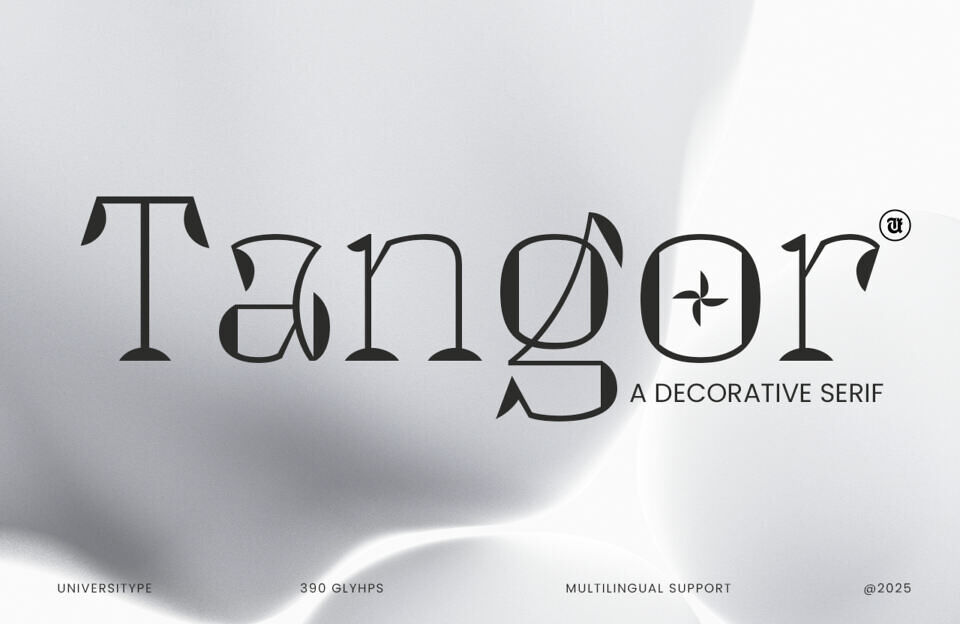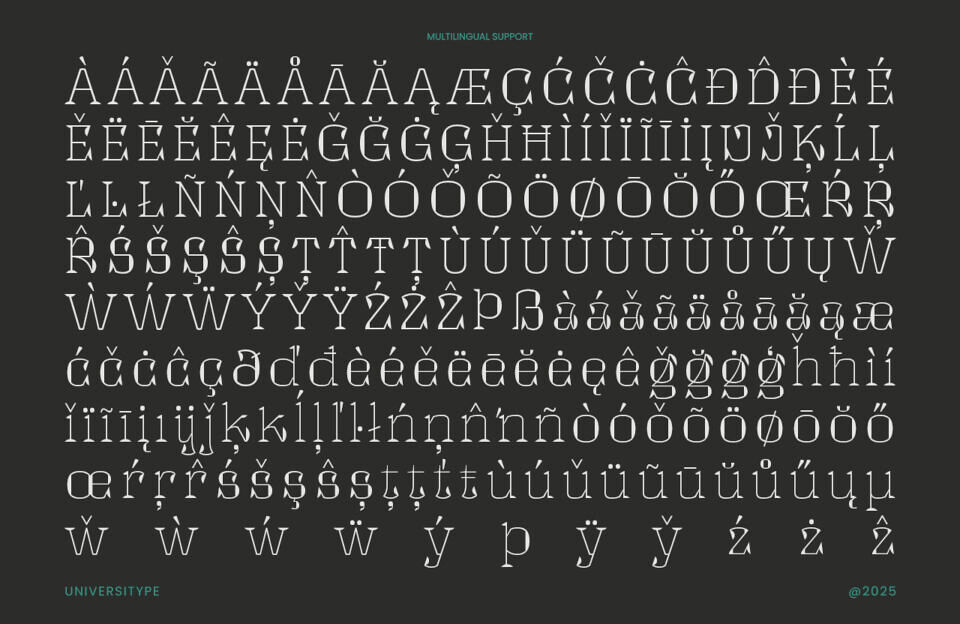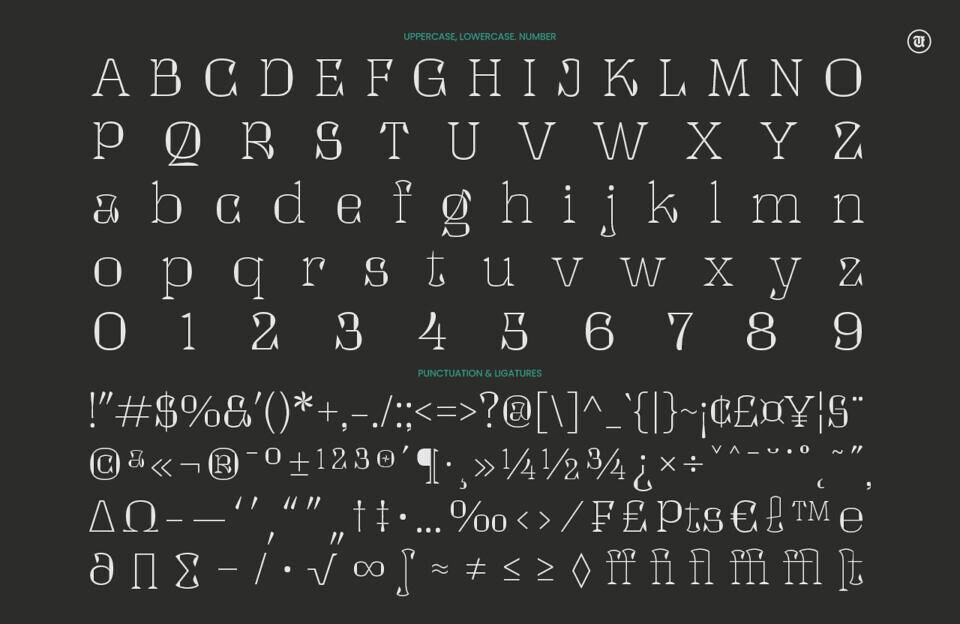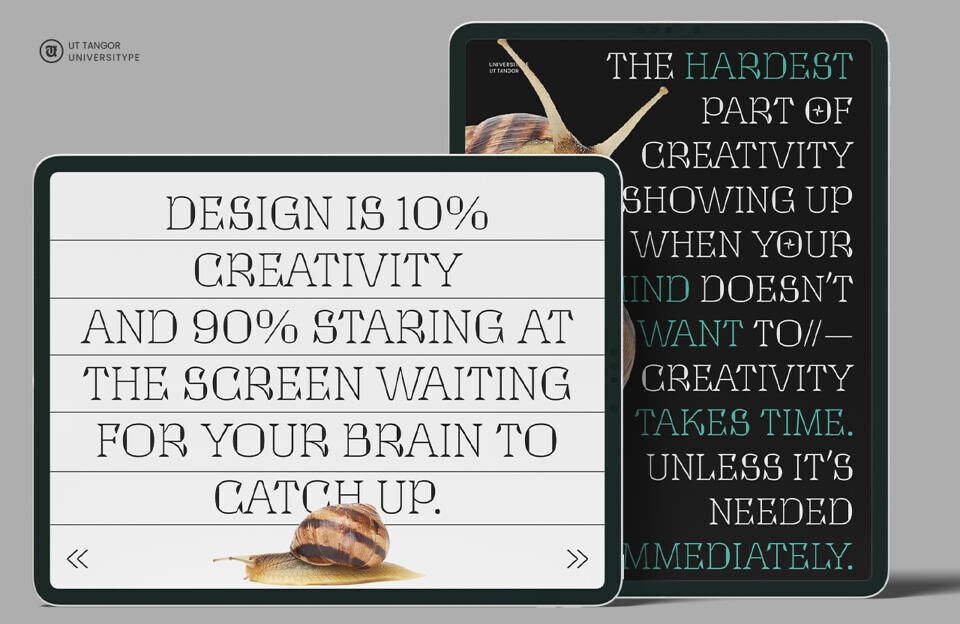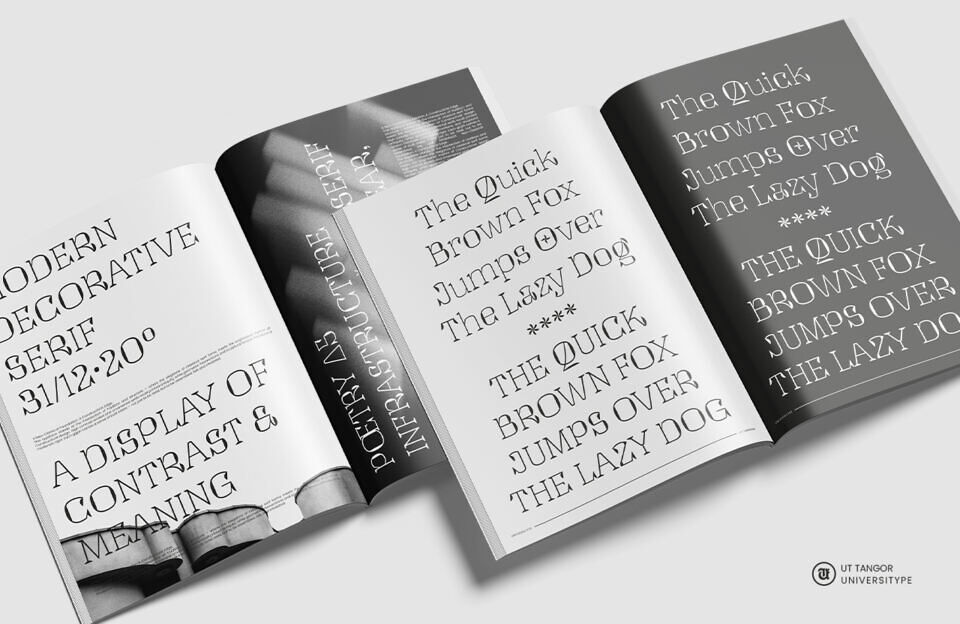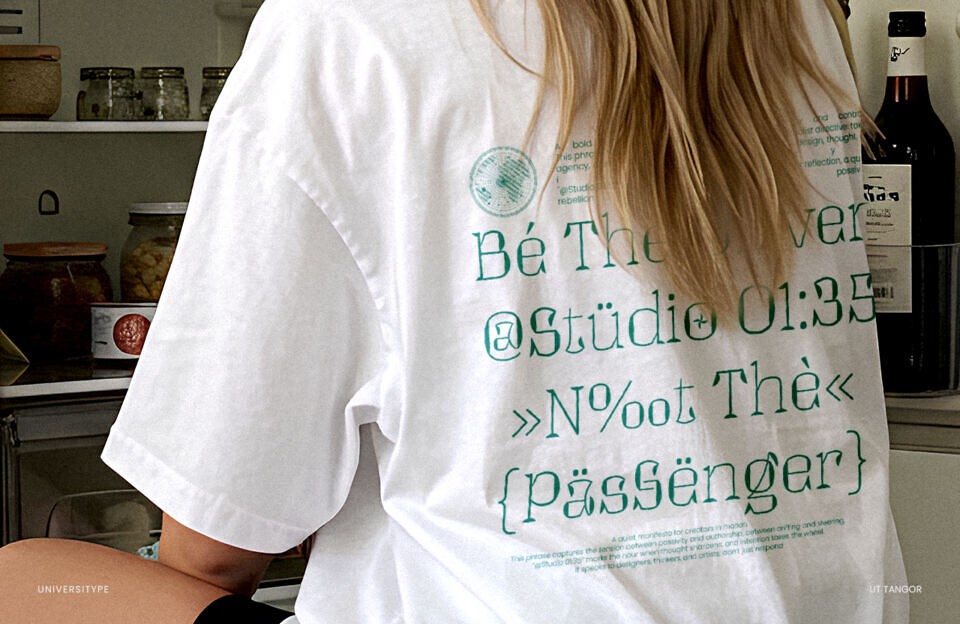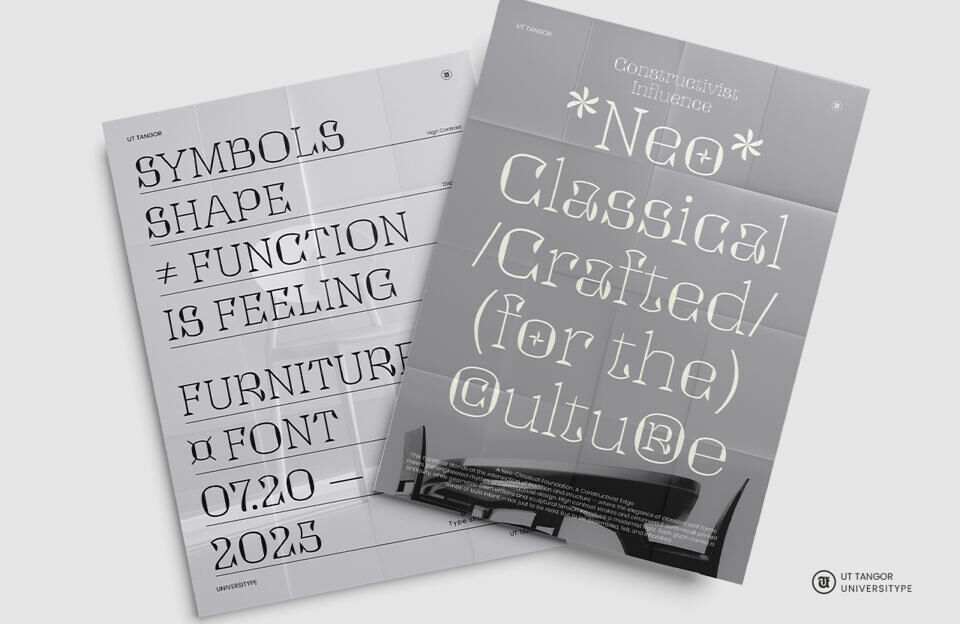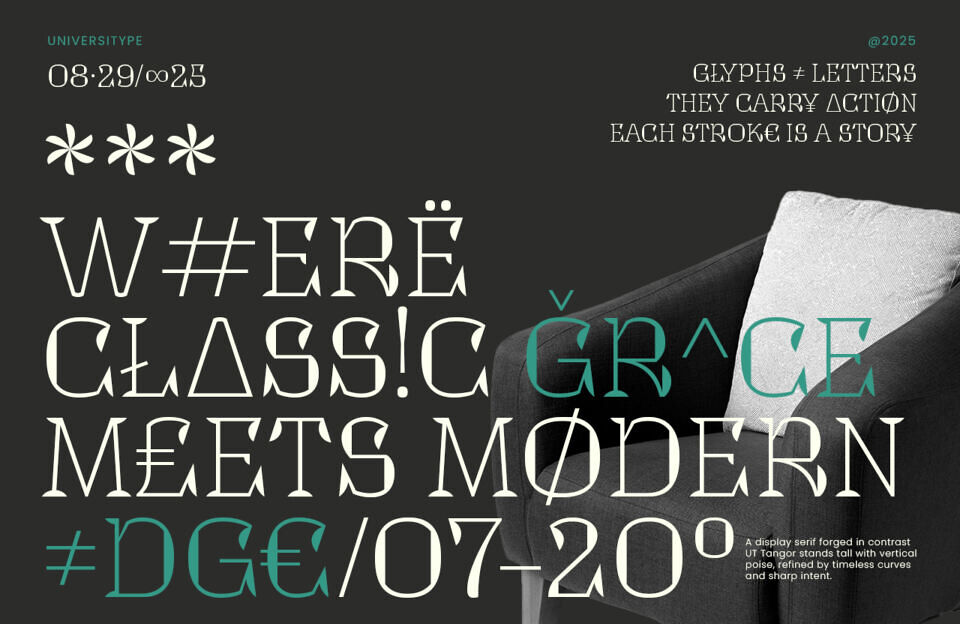
UT Tangor is a distinctive decorative serif typeface that masterfully blends classical elegance with contemporary flair. Designed for impact and refined aesthetics, UT Tangor stands tall with vertical poise, featuring sophisticated curves and sharp, intentional details.
It’s a font that doesn’t just convey words, but imbues them with grace and character, making it ideal for projects that demand a unique and memorable visual presence.